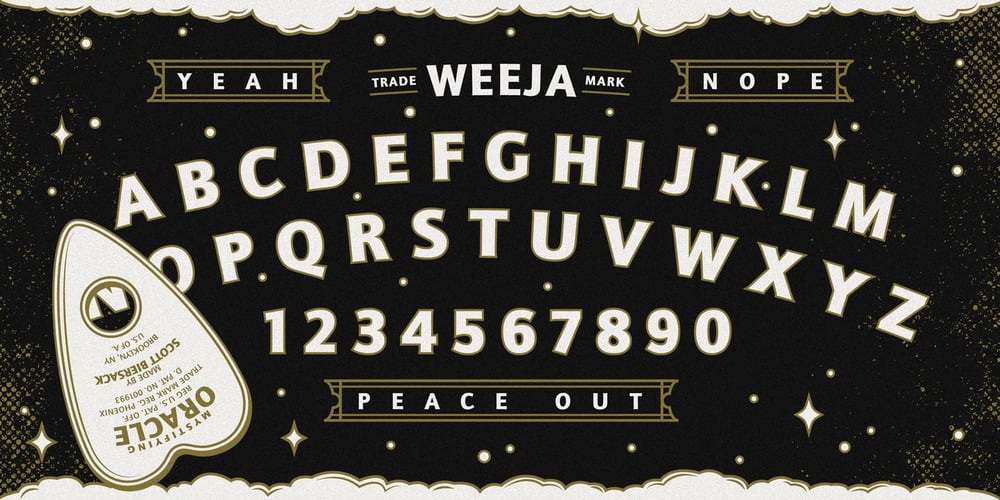
ITC Quay Sans Font Family was designed by David Quay and published by ITC. ITC Quay Sans contains 6 styles and family package options. London-based designer David Quay designed ITC Quay Sans in 1990. One of the precursors to the long run of functionalist European sans serif faces that has been a dominating force in type design since the 1990s, ITC Quay sans is based on the proportions of 19th Century Grotesk faces. Grotesk, the German word for sans serif, defines an entire branch of the sans serif movement, which culminated in the 1950s with the design of Helvetica. ITC Quay Sans is made up of very simple, legible letters. The weights of the strokes throughout the alphabet vary very little. Microscopic flares on the ends of each terminal add a bit of dimension to the design. This helps prevent the onset of the monotony, a danger when one repeats countless near mono-weight stroked letters throughout a large body of text. ITC Quay Sans is a very readable face; it works equally well in all sizes. Six fonts of the ITC Quay Sans typeface are available: Book, Book Italic, Medium, Medium Italic, Black, and Black Italic. ITC Quay Sans is similar to Hans Eduard Meier’s Syntax, and Tim Ahrens’ Linotype Aroma.”